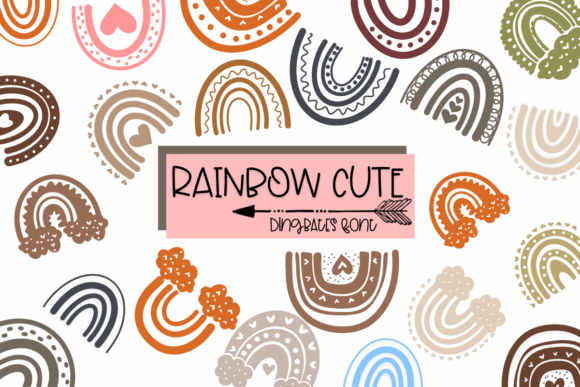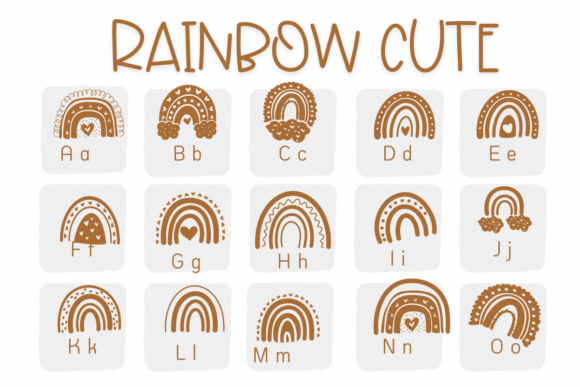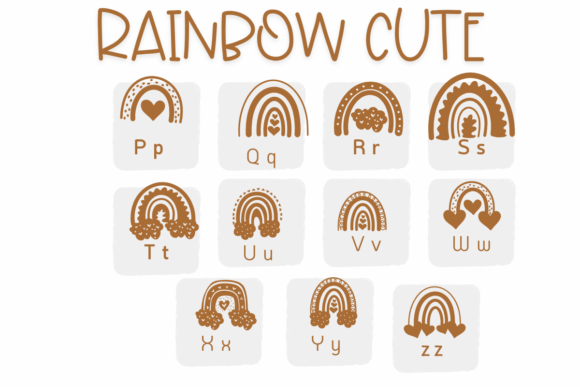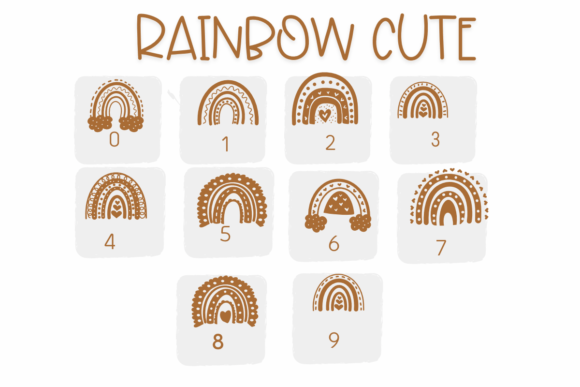
Rainbow Cute Font
About the Rainbow Cute Font
The wait is over! The incredible Rainbow Cute Font is now available for your design toolkit. Rainbow Cute is a fun dingbats font with an adorable theme. This font can enhance your creative projects such as wedding invitations, DIY, crafts, decorations, logos, and many other creative ideas.
Rainbow Cute’s playful design is ideal for projects requiring a lighthearted and approachable aesthetic. It excels in short, impactful uses such as logos, headlines, short social media posts, and packaging for children’s products or whimsical brands. Avoid using it for lengthy body text or UI elements where readability is paramount; its decorative nature can hinder legibility in extended use.
Pairing it with a clean sans-serif like Open Sans for body text creates a balanced contrast between playfulness and readability. For a more sophisticated touch, consider a classic serif such as Garamond to ground the design. Alternatively, a simple geometric sans-serif adds modern appeal without overwhelming Rainbow Cute’s charm.
The font’s overall personality is undeniably cheerful and whimsical, making it perfect for brands targeting a young or youthful demographic. Its visual energy is best utilized in designs that embrace a vibrant and friendly tone.
Rainbow Cute Font Usage Examples
Rainbow Cute Font Example